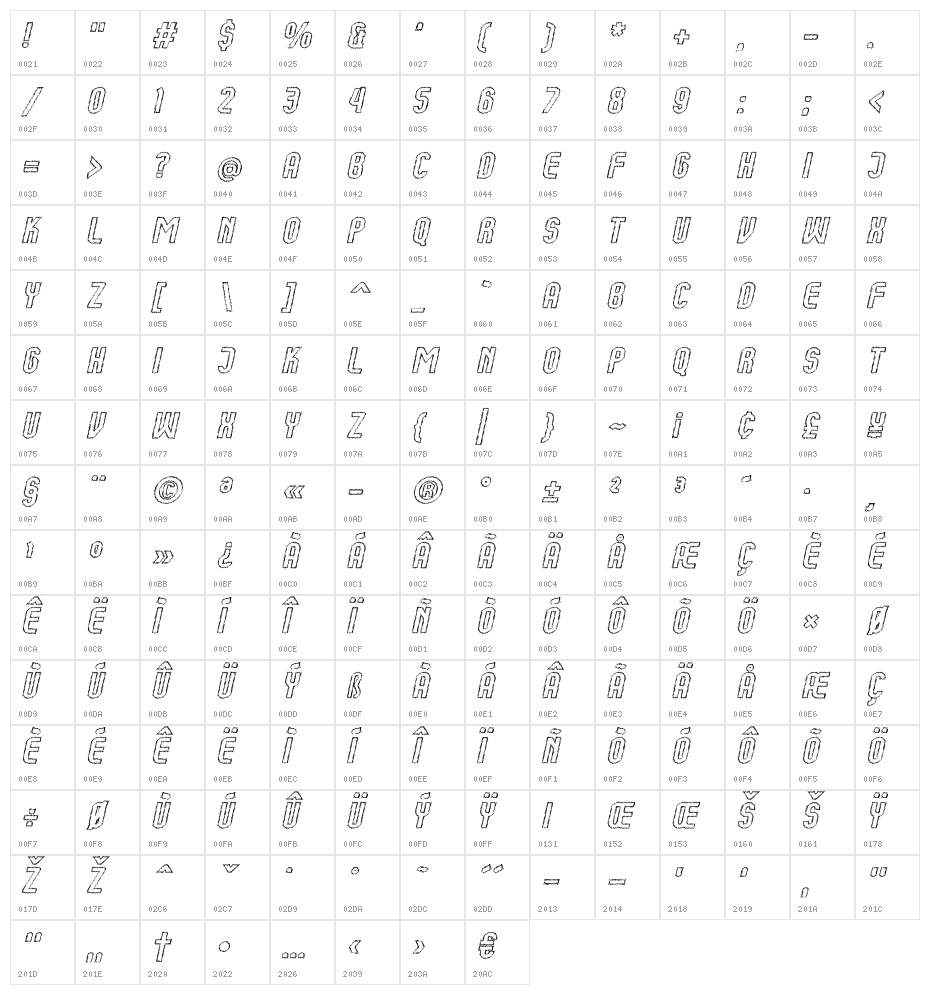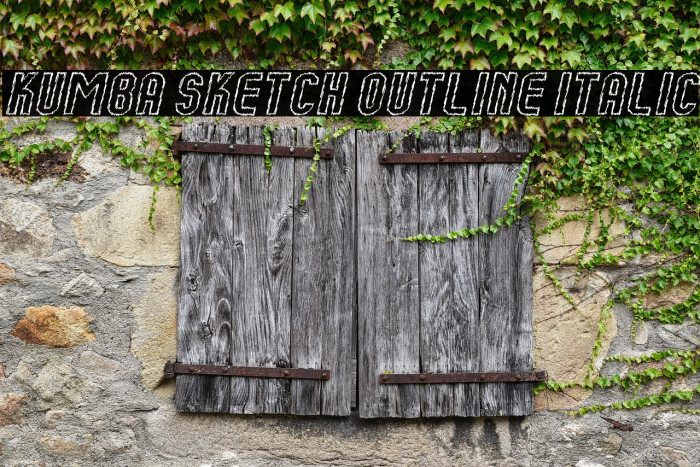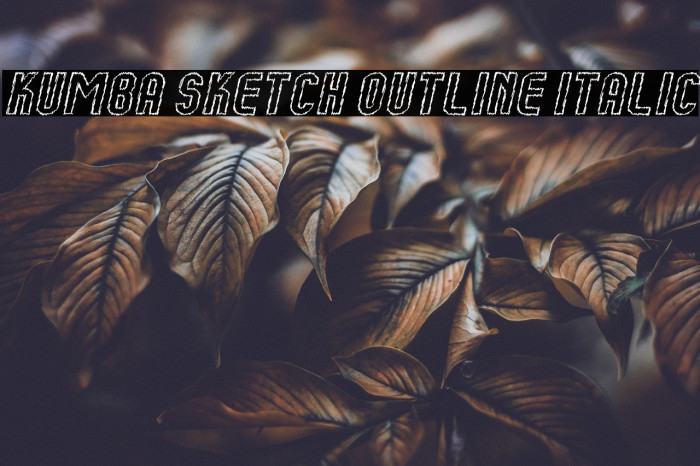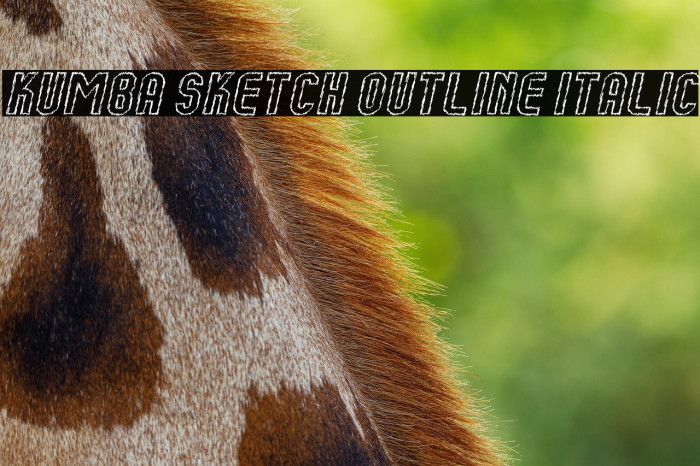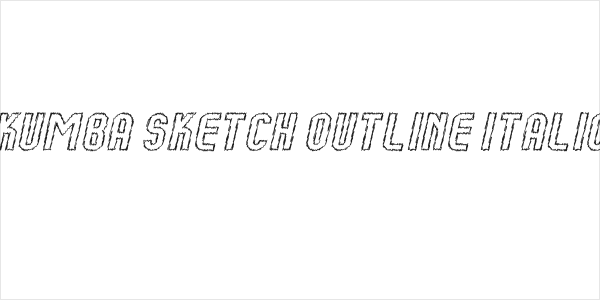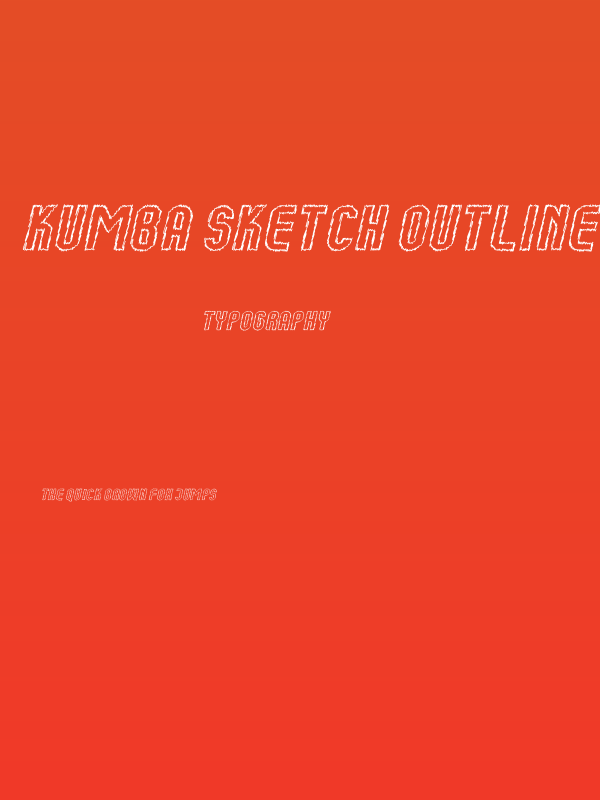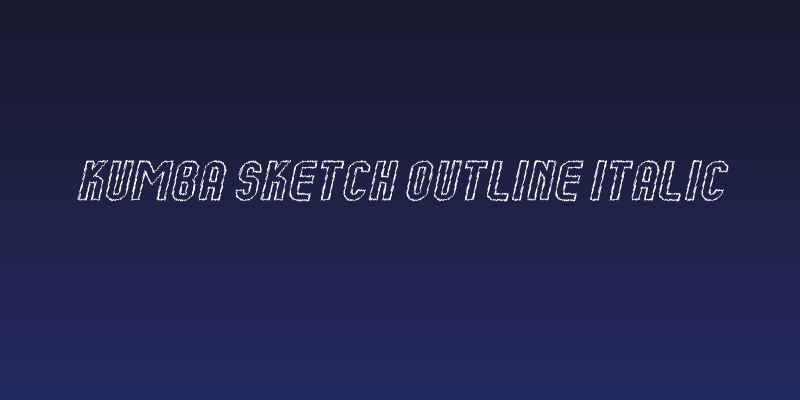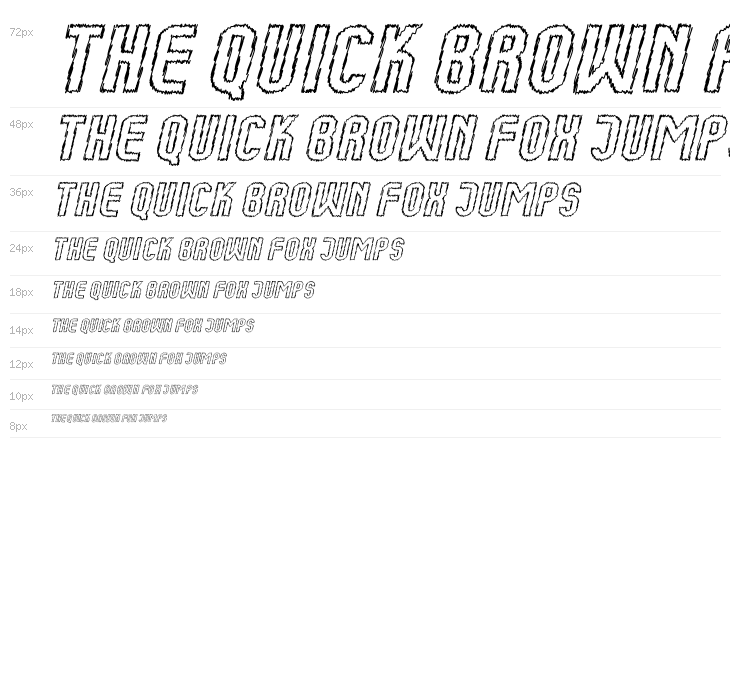
Kumba Sketch Outline Italic Font
Kumba Sketch Outline Italic Description
This font features a playful and dynamic sketch outline style, giving it a hand-drawn appearance. The characters are bold and italicized, with a distinctive rough edge that adds a sense of movement and energy. Each letter is outlined, creating a hollow effect that enhances its visual impact. The font maintains a consistent slant, contributing to its italic nature, while the sketchy outline provides a textured, artistic feel. This unique style makes it stand out, suitable for creative and informal designs.